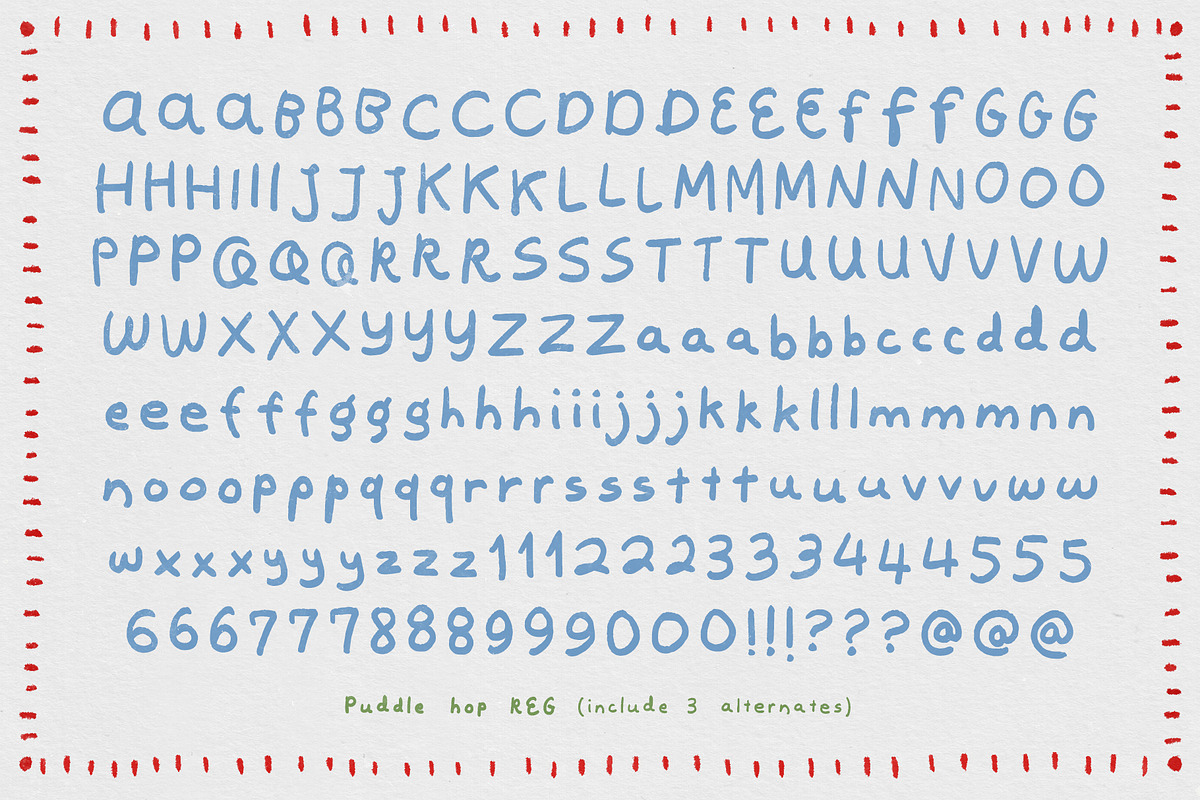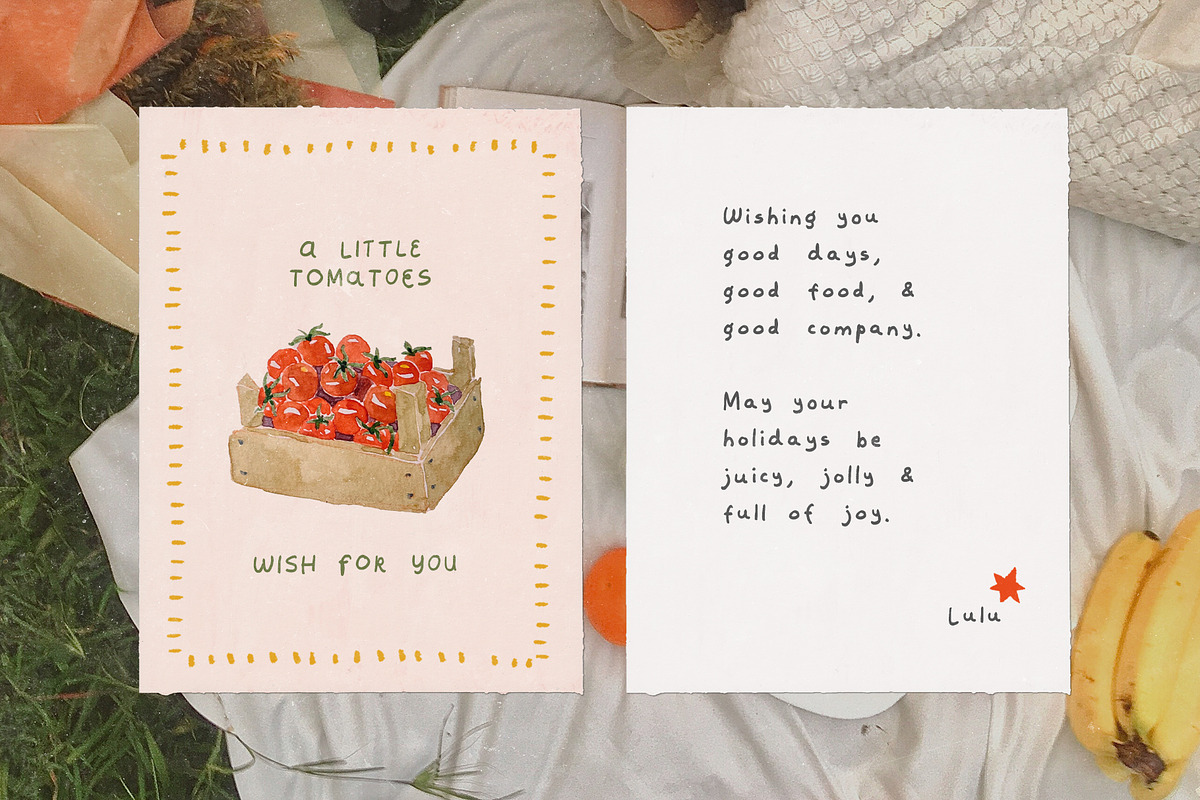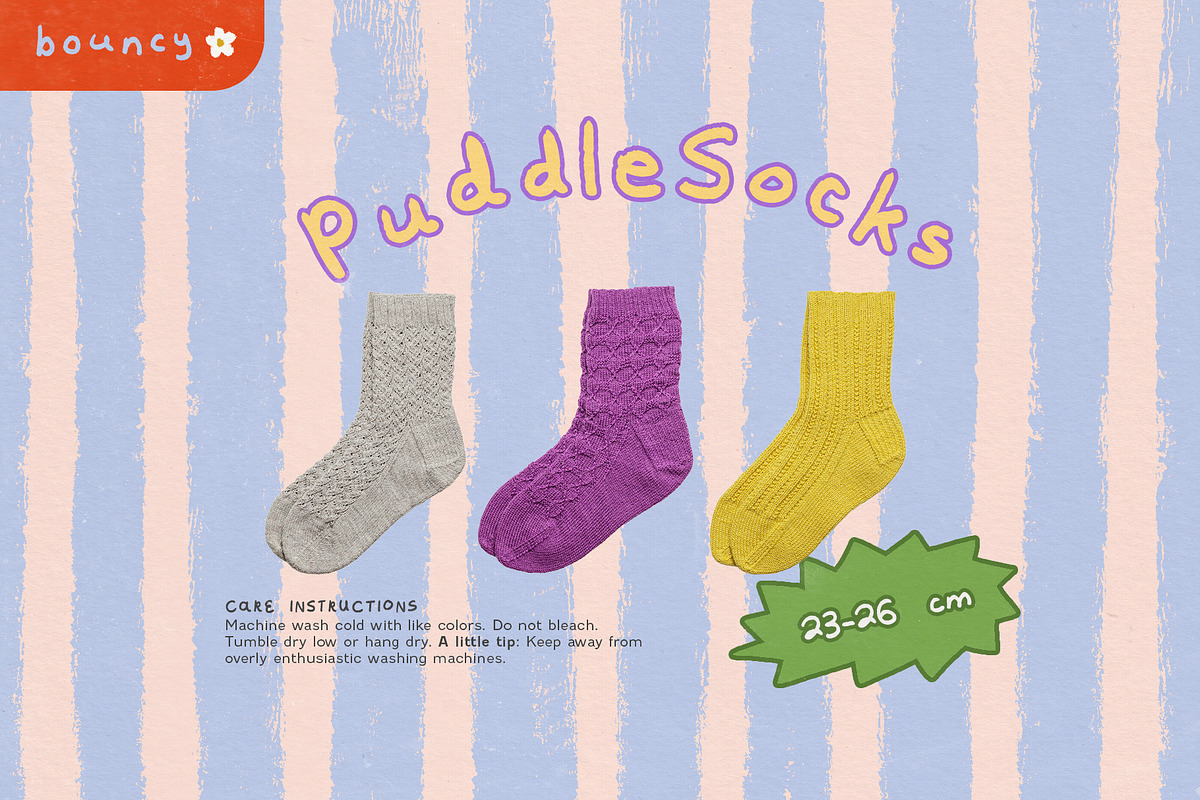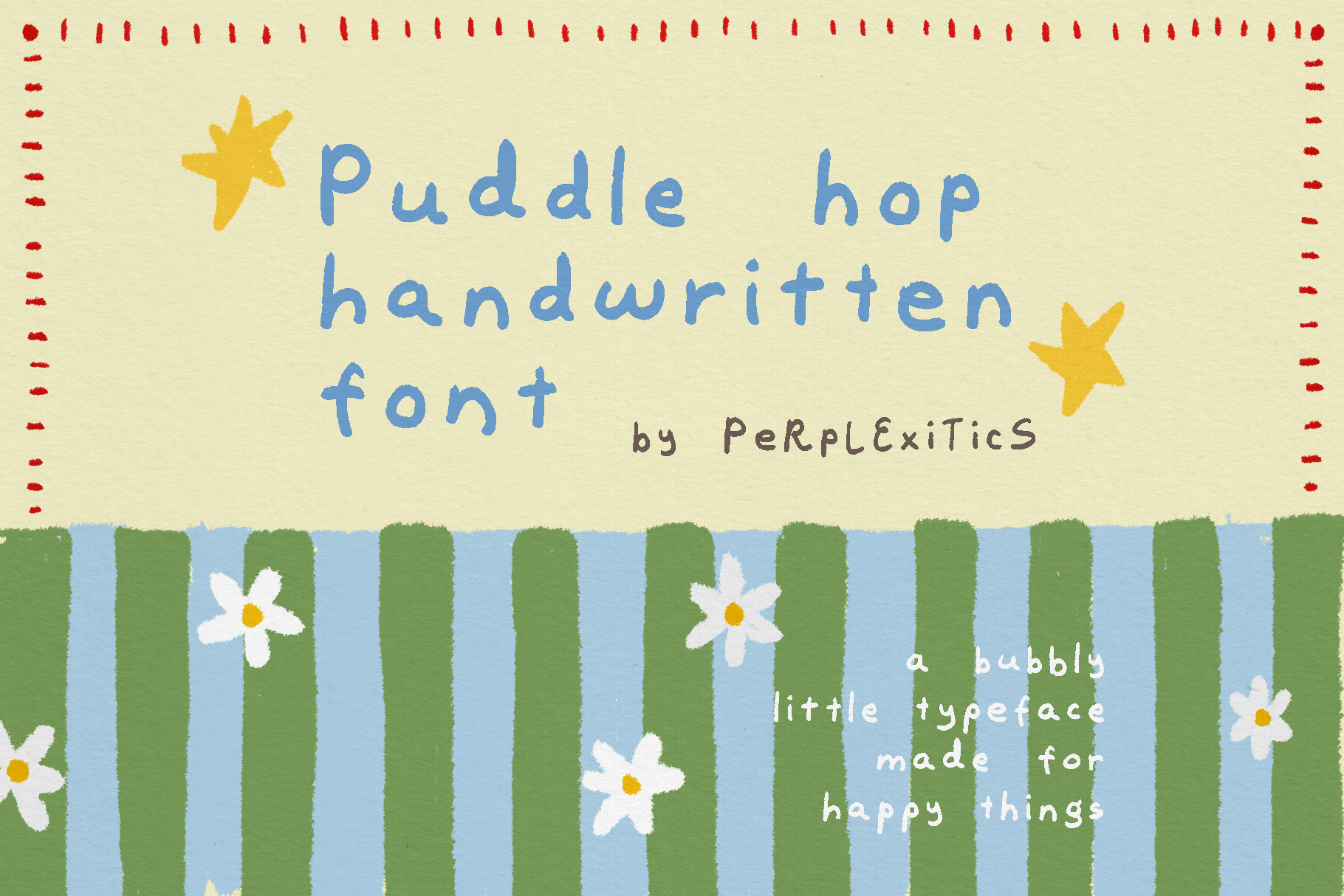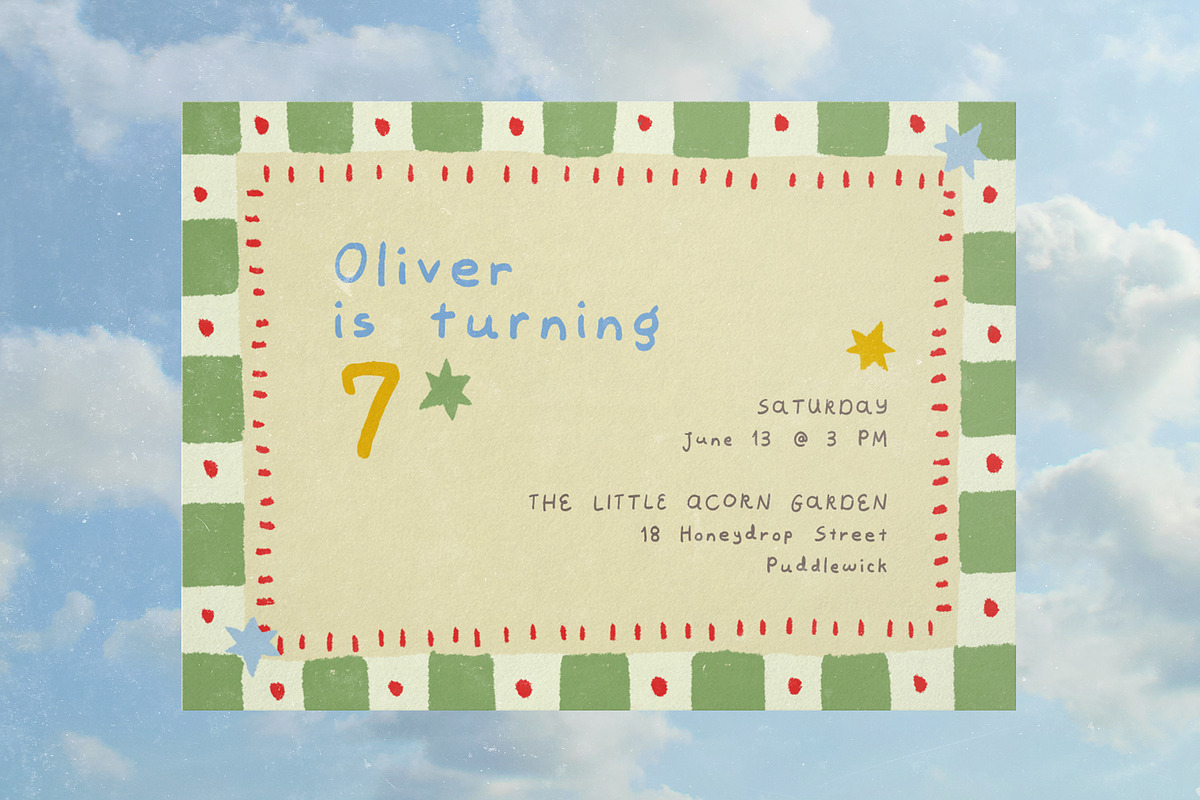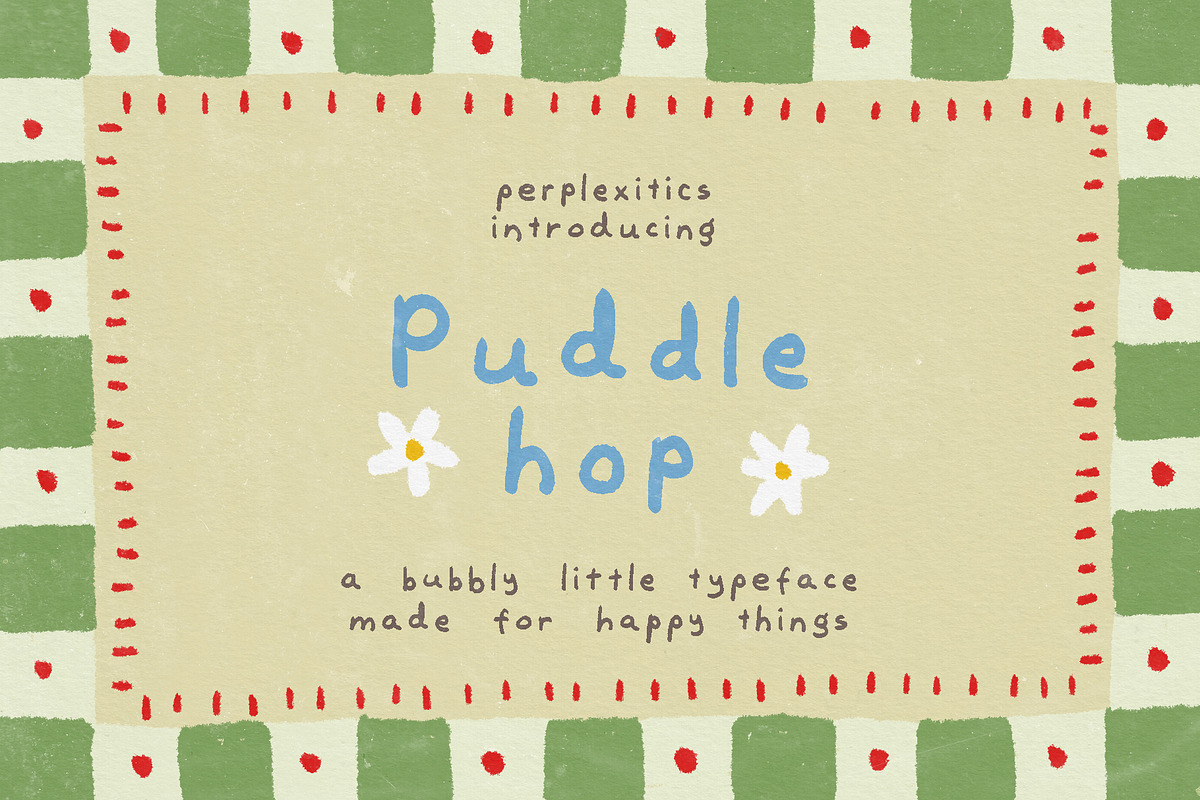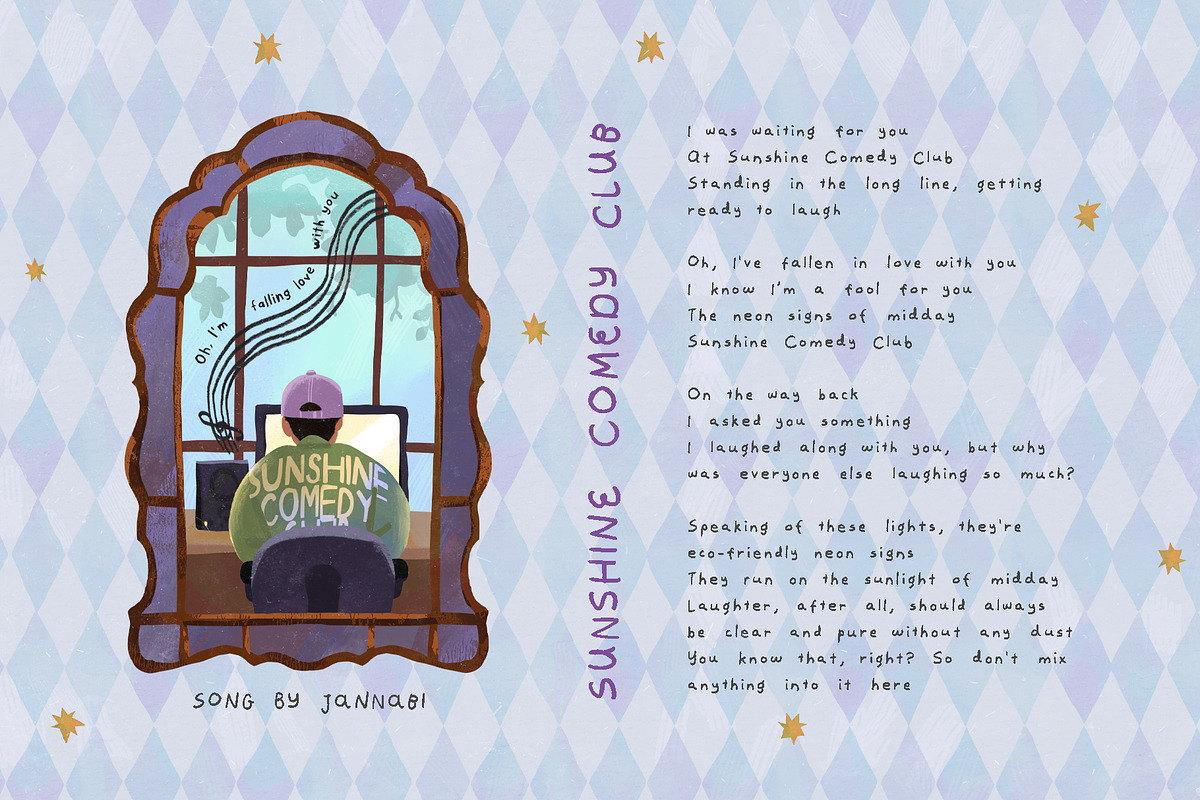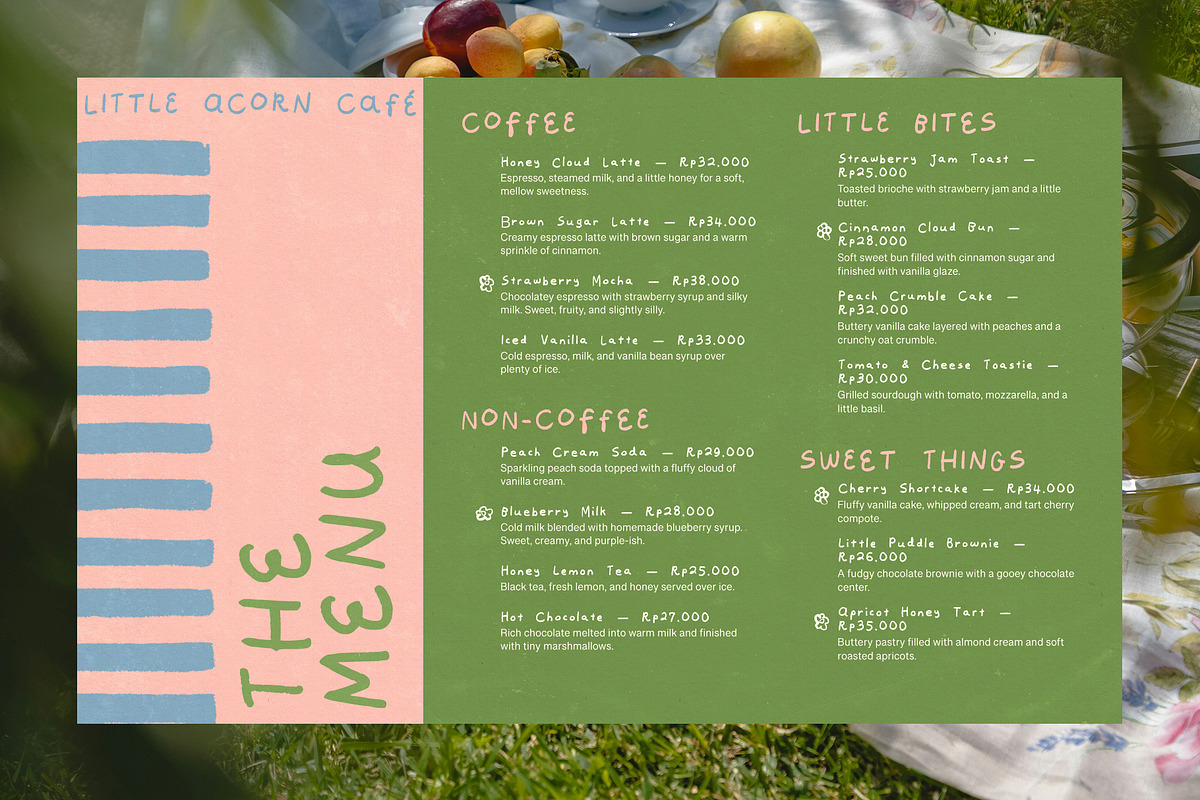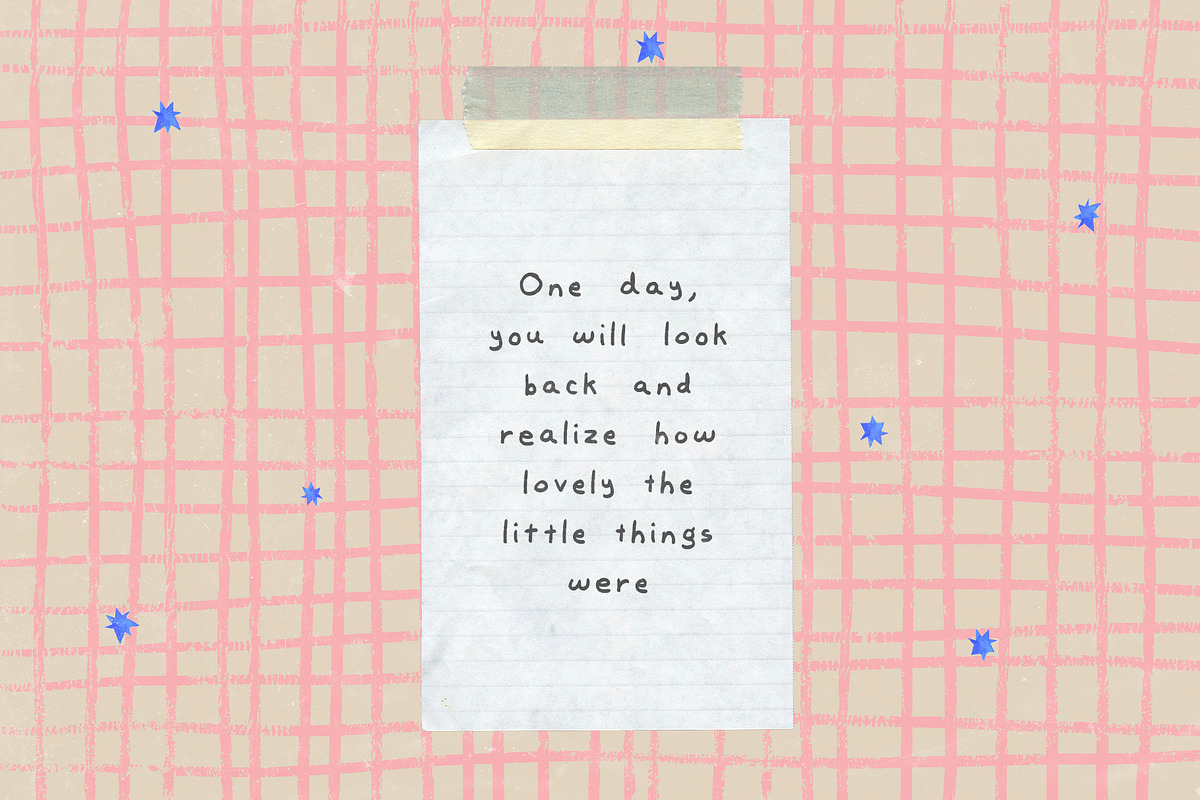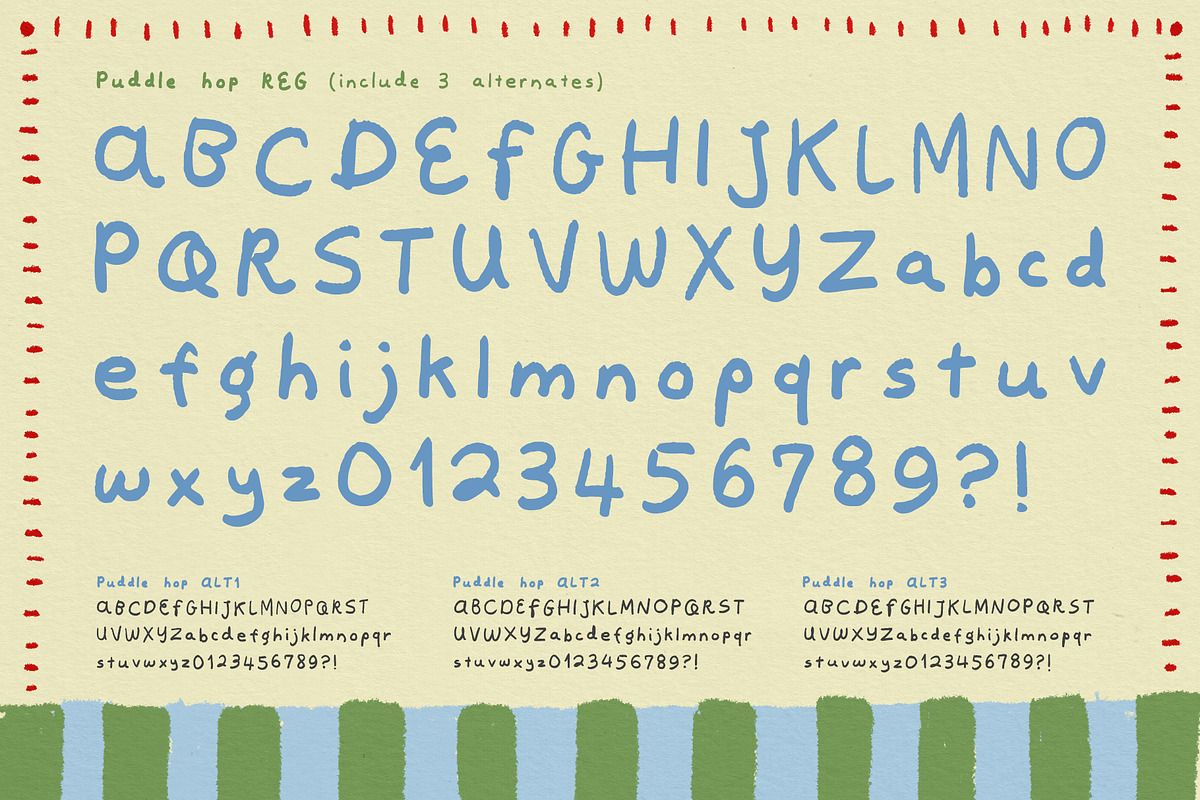
Puddle Hop Handwritten Font
Puddle Hop is a bubbly handwritten typeface with round, playful letters and a cheerful little personality. Its soft shapes and bouncy forms make it perfect for kids' designs, packaging, branding, invitations, posters, stickers, and anything that needs a fun and whimsical touch.
Puddle Hop Handwritten Font is packed with everything you need, including uppercase and lowercase letters, numbers, punctuation, and 3 alternate sets. Multilingual support.